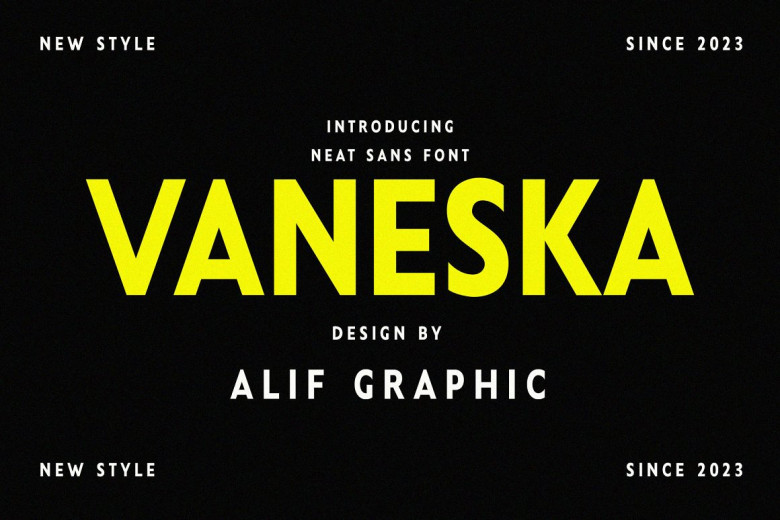
Vaneska Font
Introducing a sans font as tidy as Vaneska. Vaneska is a neat and elegant sans font. This font is modern and elegant and works great for websites, logos, magazines, social media. The font is all matched, to use together for your next design! This font is for people who also need a little chic, style, class and modern design requirements.
Vaneska Sans Serif Font